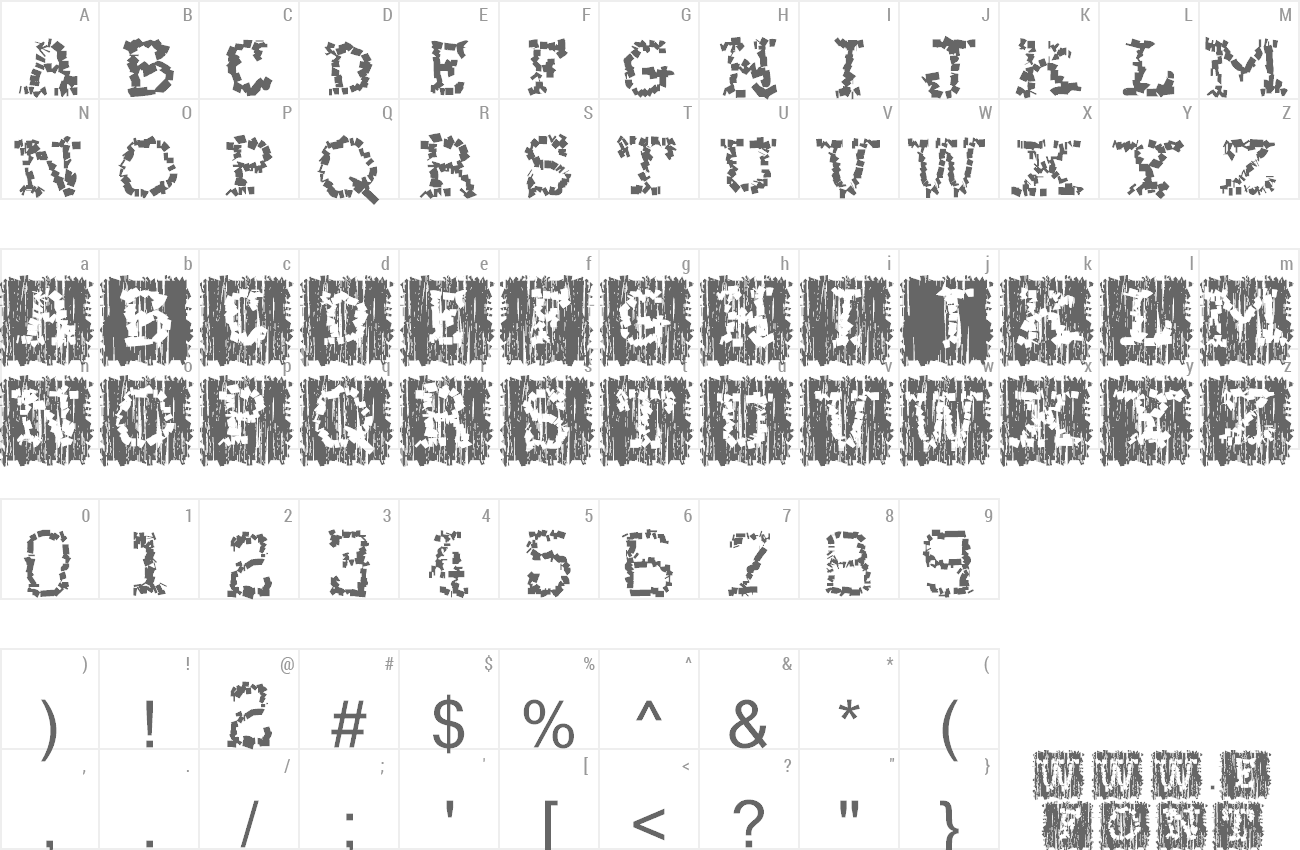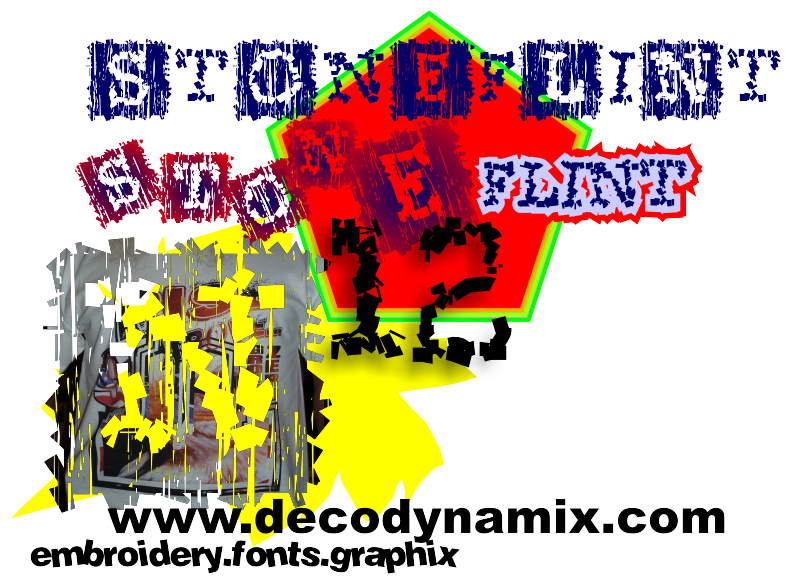
Preview and download Stoneflint Font. Created by Nevi A in Fancy Destroy styles with 100% Free license.
This is a super print style, especially if you have no time to create effects and need things NOW! There are really few embroidery designers that create combination TTF/embroidery fonts and E-Fect is now innovating in that area. TTF licensing issues can be a pain for printers and embroiderers. Stoneflint.TTF gives you instant creative power in a trendy style. Kids love the weird looking text and 'distressed' is the fashion statement of 2013/14 really. |